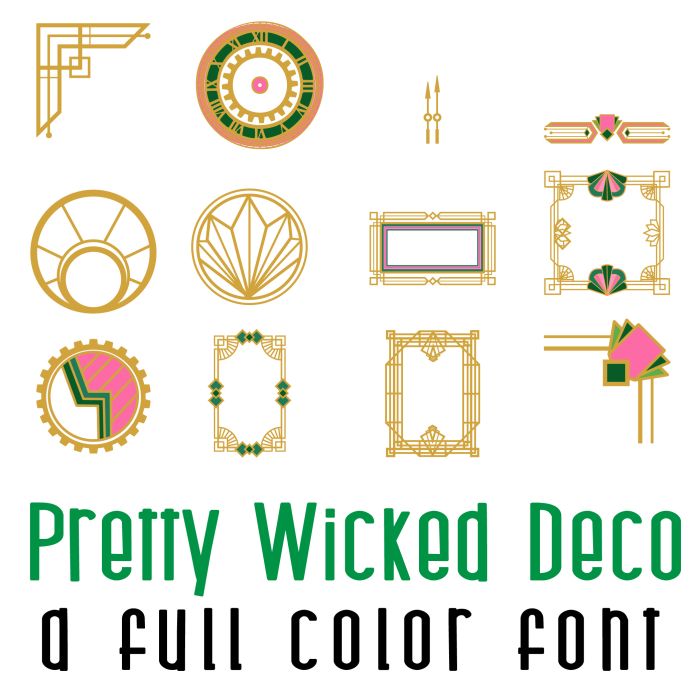
This fun full color font features 26 fun art deco frames, borders, corners and designs, perfect for cards, crafts, parties, gifts, decor, planner stickers, classrooms, scrapbook pages and more!